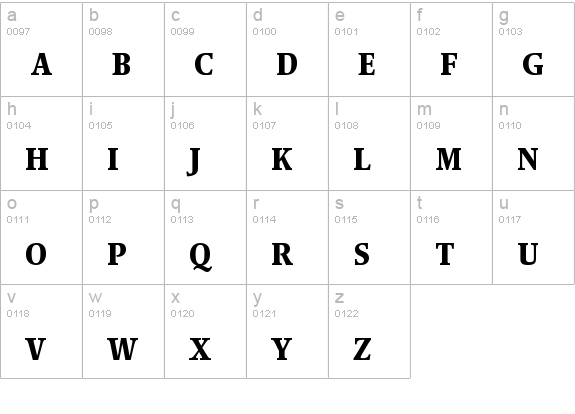
Poppl-Pontifex BE Medium Condensed with Small Caps Font Details
Poppl-Pontifex BE Medium Condensed with Small Caps is a balanced, medium-weight, condensed-width variant in the Poppl typeface family \xE2\x80\x94 well suited to sub-headlines, navigation, and balanced editorial work.
The Poppl-Pontifex BE Medium Condensed with Small Caps font exudes a sense of modern sophistication and timeless elegance. Its sleek and streamlined design makes it perfect for a wide range of projects, from branding and advertising to editorial design and packaging. The medium weight of the font strikes the perfect balance between authority and approachability, making it versatile for both display and body text. With its small caps feature, Poppl-Pontifex BE adds a touch of refinement to any design, ensuring that your text stands out with style and clarity. Whether you're creating a sleek corporate identity or designing an eye-catching poster, this font is sure to elevate your project to the next level. Best of all, Poppl-Pontifex BE Medium Condensed with Small Caps is available for free download at FontsMarket.com. This means that you can easily access this premium font without any cost, allowing you to enhance your designs with professional typography without breaking the bank. Don't miss out on the opportunity to add this versatile and elegant font to your collection today.